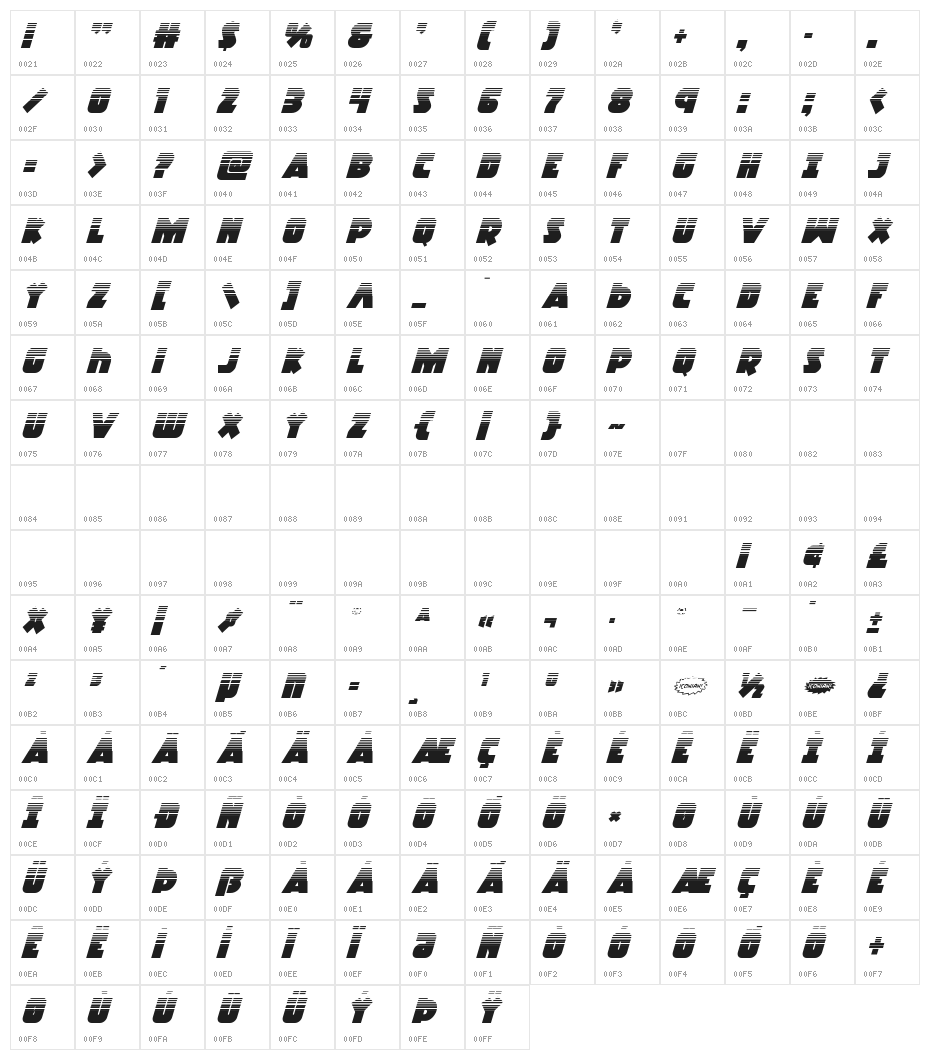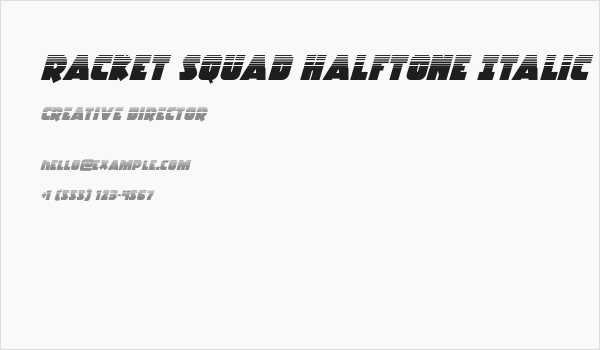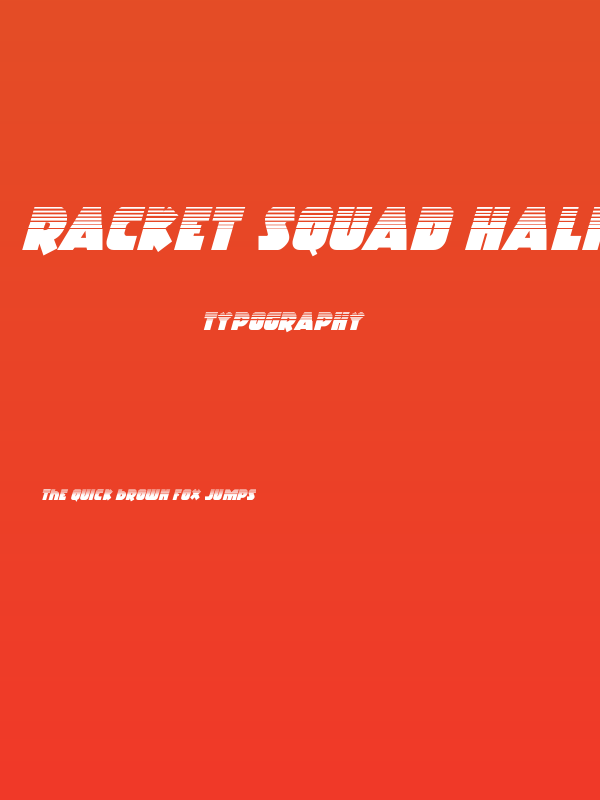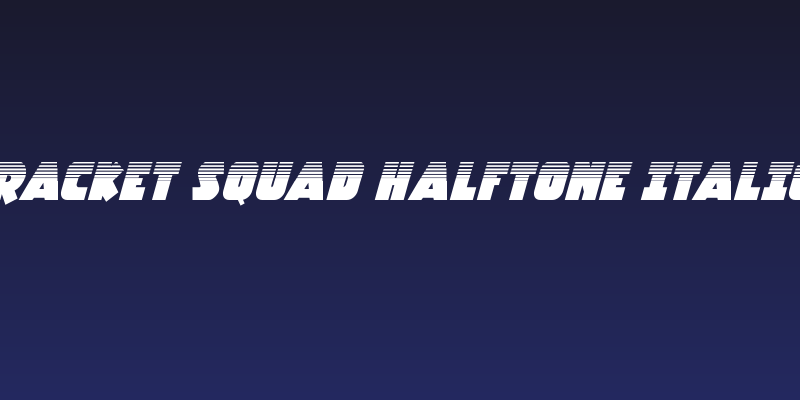
Racket Squad Halftone Italic Font
Racket Squad Halftone Italic Description
This font features a bold, italicized style with a distinctive halftone effect that gives it a dynamic and modern appearance. The uppercase and lowercase letters, as well as numbers and special characters, are designed with a strong emphasis on horizontal lines that create a sense of movement. The characters are wide and have a condensed appearance, making them ideal for impactful headlines and attention-grabbing designs. The halftone pattern adds a unique texture, enhancing the visual interest and making it suitable for creative projects that require a bold statement.